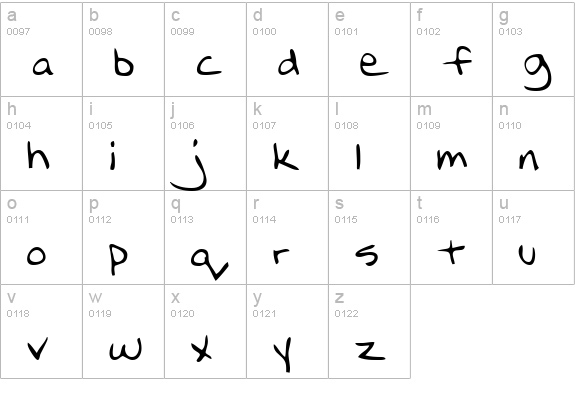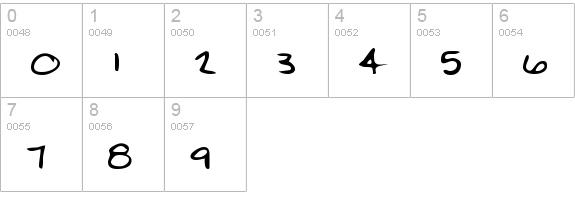
NellysHand Regular Font Details
NellysHand Regular is the standard, neutral variant in the NellysHand typeface family \xE2\x80\x94 well suited to general body text, paragraphs, and standard typographic work.
NellysHand Regular font is a charming and playful typeface that exudes a sense of friendliness and creativity. With its handwritten style and smooth curves, this font is perfect for adding a personal touch to your designs. Whether you're working on a greeting card, logo, or social media post, NellysHand Regular will bring a warm and inviting vibe to your project. The best part? NellysHand Regular font is available for free download at FontsMarket.com. You can easily access this delightful font and start incorporating it into your designs right away. Don't miss out on the opportunity to enhance your projects with the whimsical charm of NellysHand Regular font. Download it today and let your creativity shine!